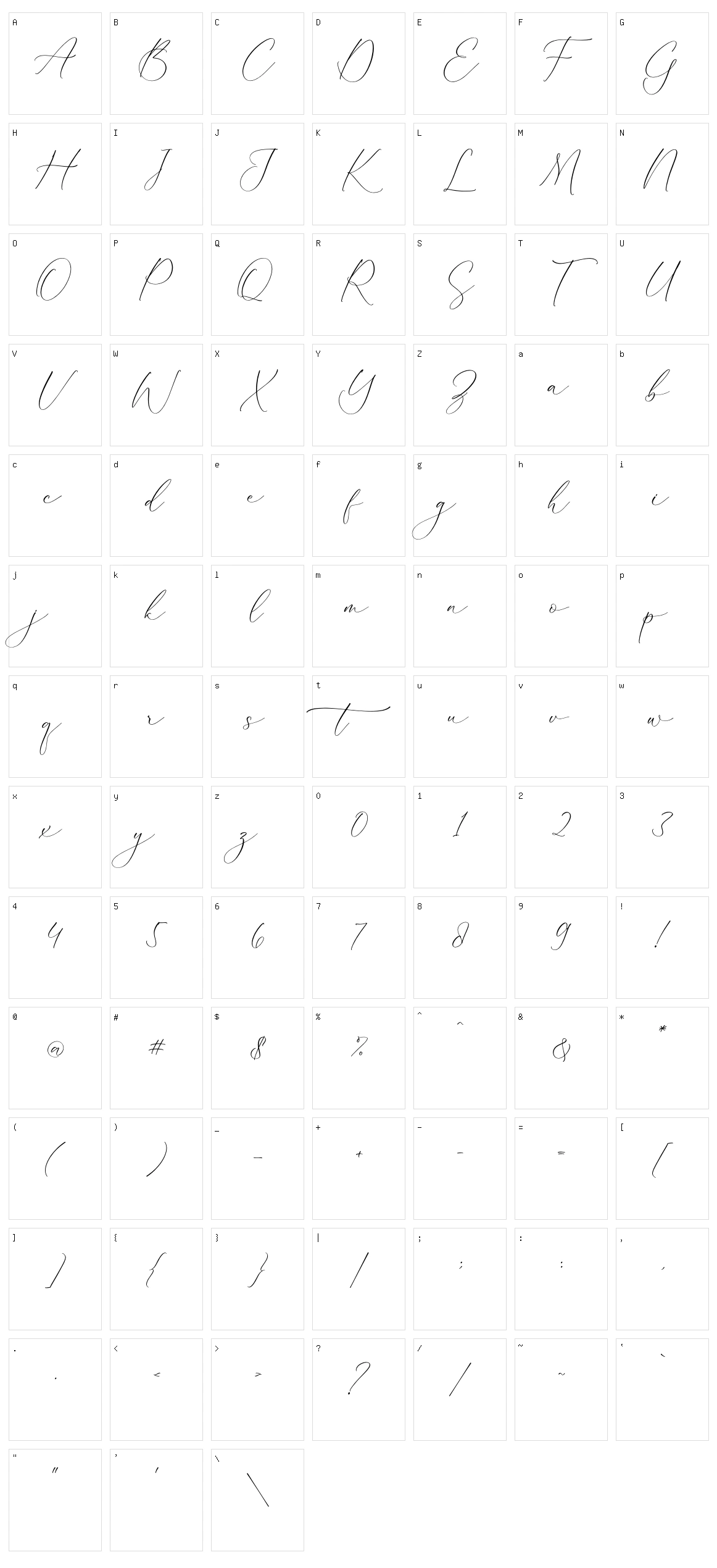
The free font Palmer Corella is carefully designed by Storytype Studio, showcasing a thoughtful balance of creativity and usability and falls under the Script font style. When you download the ZIP file, it contains only 68.06 KB of font files, making it lightweight and quick to download. Please review the license details below to understand permitted usage and distribution rights. If license information is not available, we recommend using this font for personal projects only or contacting the author directly for commercial usage permissions.